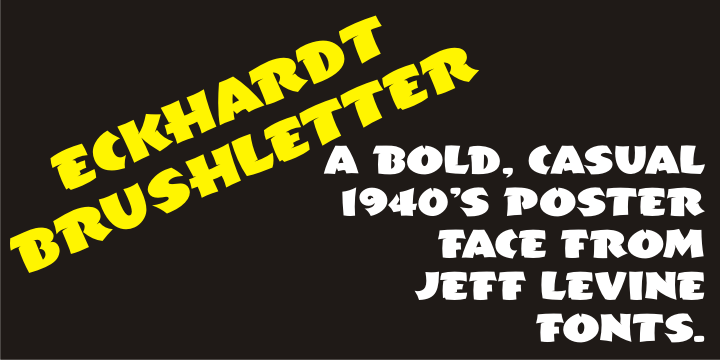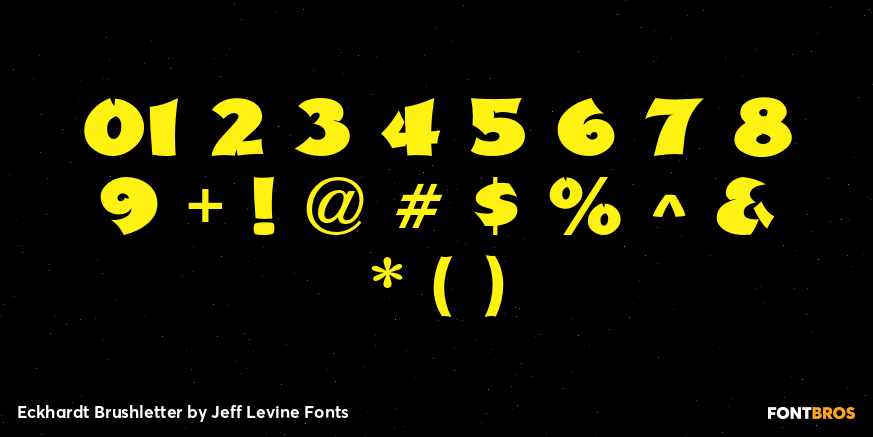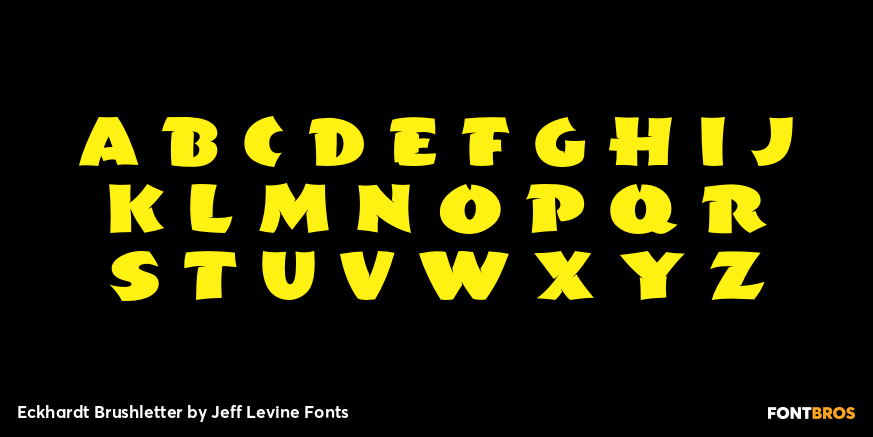
Eckhardt Brushletter
The wealth of vintage hand-lettering styles found in a 1941 edition of the Speedball® Lettering Pen instruction book has allowed Jeff Levine to re-draw a number of them in digital format for today's designers.
As with other fonts in the Eckhardt Series of sign painter-inspired styles, this font is named in honor of Jeff's good friend Albert Eckhardt, Jr. Al was quite the talented sign writer, and ran Allied Signs in Miami, Florida from 1959 until his passing.